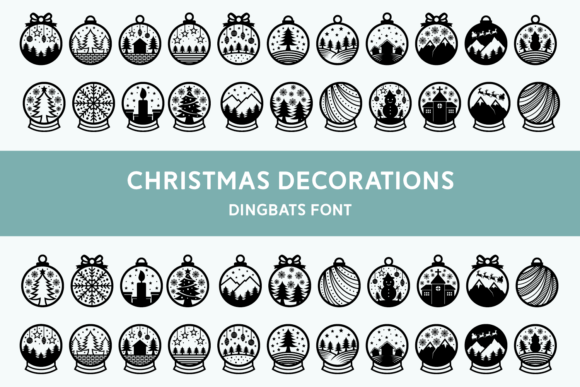
The Magic of Christmas in Font Form
As the snowflakes start to fall and the fireplace crackles to life, many designers find themselves swept up in the holiday spirit. For some, this means scouring the web for the perfect festive font to give their designs a cozy touch. But what if you could have it all in one convenient package?
Enter the Christmas Decorations Font, a stunning collection of over forty intricately detailed illustrations of ornaments and snow globes, waiting to be used in your next holiday project. From snowy landscapes to Santa’s sleigh, this font is a treasure trove of festive flair, perfect for adding a touch of whimsy to your designs. With its versatility and high-quality glyphs, the Christmas Decorations Font is a must-have for any designer looking to create merry and bright digital elements.
- Unique Characteristics: Custom-designed Christmas-themed ornaments and decorations, including snowflakes, bells, and stockings, with intricate details and textures
- Character Set: Includes a wide range of characters, including uppercase and lowercase letters, numbers, and punctuation marks, as well as special Christmas-themed symbols and icons
Designer Review: Christmas Decorations Font
Overall, I think the Christmas Decorations Font is a fun and playful addition to any holiday-themed project. ✨ It’s a great choice for those looking to add a festive touch without being too overwhelming. The font is well-suited for titles, headings, and other prominent text elements.
One of the things that stands out about this font is its versatility. ✨ It can be used in a variety of different design contexts, from website headers to social media graphics. The font also works well in combination with other festive graphics and elements, such as snowflakes, holly, and candy canes.
- Fun and playful aesthetic
- Well-suited for titles, headings, and other prominent text elements
- Highly versatile and adaptable to different design contexts
- May not be suitable for more formal or professional designs
- Can be overwhelming if used too extensively
- Lacks a clear, modern aesthetic
- ⚠️ Not ideal for small text due to its busy design
Overall, I think the Christmas Decorations Font is a fun and playful choice for holiday-themed projects. While it may not be suitable for every design context, it’s a great option for those looking to add a festive touch to their work.
The Christmas Decorations Font is ideal for creating festive holiday cards, gift tags, and decorations. It’s also great for designing holiday-themed social media graphics, advertisements, and marketing materials.
To get the most out of the Christmas Decorations Font, try combining it with other festive graphics and fonts. Experiment with different font sizes, colors, and effects to create a unique and eye-catching design.